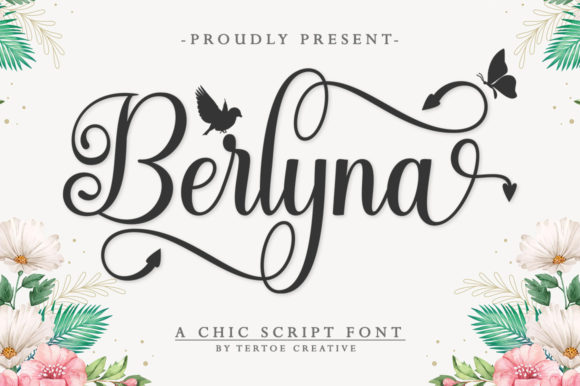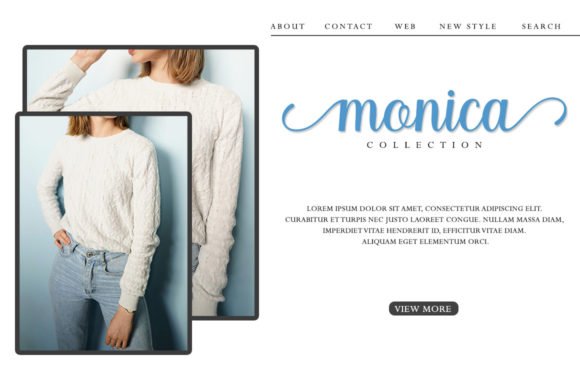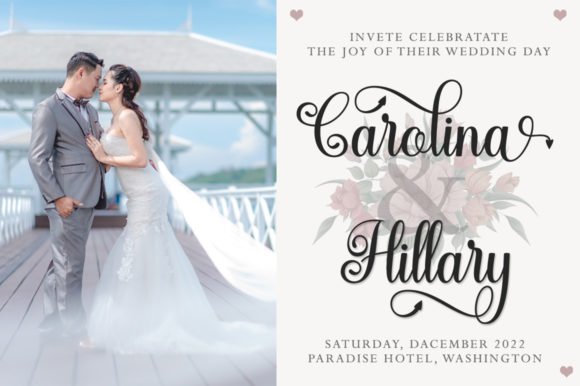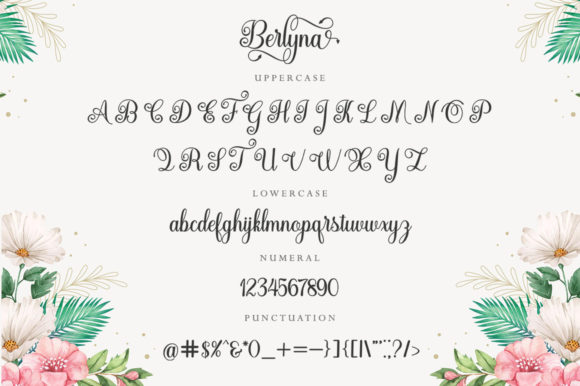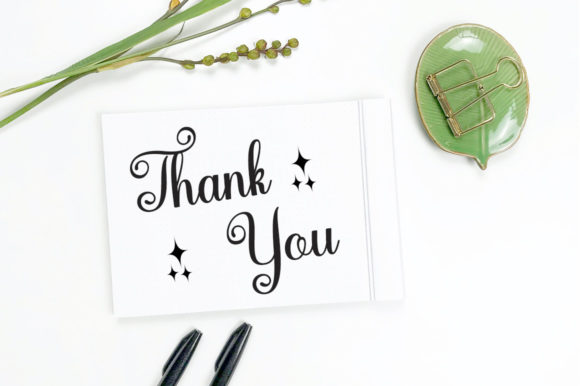
Berlyna Font: Enchanting Script for Creative Designs
“Berlyna” is a captivating script font that combines elegance with a touch of magic. It’s perfect for various creative projects, from social media posts to DIY crafts, adding sophistication and allure to your designs.
Berlyna in Social Media and Digital Design
When used on platforms like Instagram, “Berlyna” adds a sense of allure to your posts. Its graceful curves and flowing lines create a visually pleasing aesthetic that draws viewer attention and imparts elegance to your content.
Enhancing DIY Projects with Berlyna
For DIY projects demanding a touch of enchantment, “Berlyna” offers a rich array of glyphs and swashes through its PUA encoding. This feature allows you to effortlessly add ornamental details to your designs, turning ordinary projects into extraordinary pieces.
Berlyna in Branding and Logo Design
By incorporating “Berlyna” into your brand identity, you infuse your business with sophistication and enchantment. Its carefully crafted letterforms create a memorable and distinctive visual identity that leaves a lasting impression.
Versatility of Berlyna Typography
“Berlyna” is well-suited for crafting quotes, inspirational messages, and personalized invitations. The font’s magical script elevates the emotional impact of words, making them more impactful and resonant with readers.
Berlyna in Editorial and Publishing
In editorial design, “Berlyna” brings a touch of enchantment to book covers, magazine layouts, and other publishing projects. Its blend of elegance and magic adds an element of intrigue that captivates readers and enhances overall design.
Conclusion: Berlyna – A Font for Magical Expression
“Berlyna” is a captivating script font that infuses creative projects with elegance and enchantment. Its PUA encoding ensures easy access to various glyphs and swashes, allowing customization and enhancement of designs. Whether for social media, DIY projects, branding, or other creative ventures, “Berlyna” has the ability to turn ideas into true masterpieces of art.